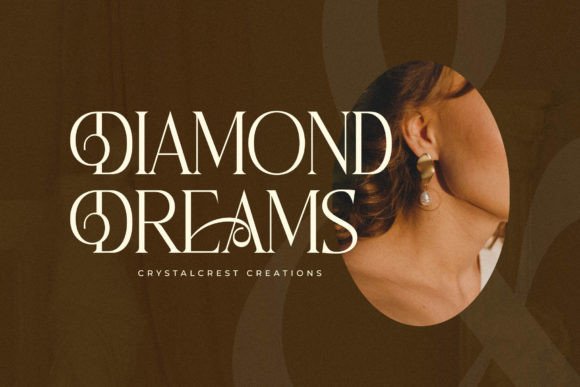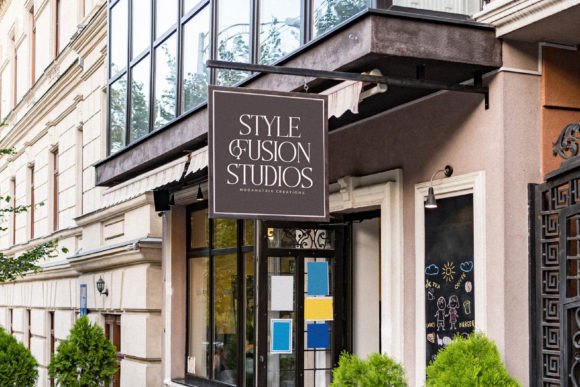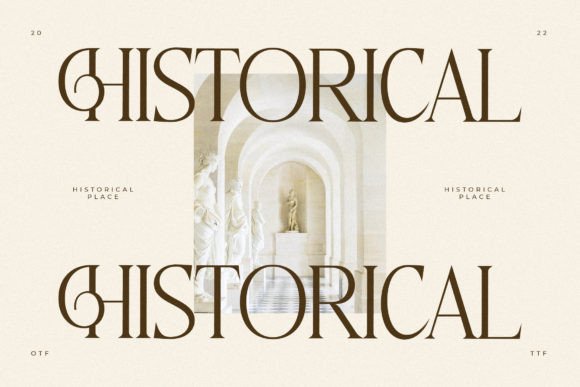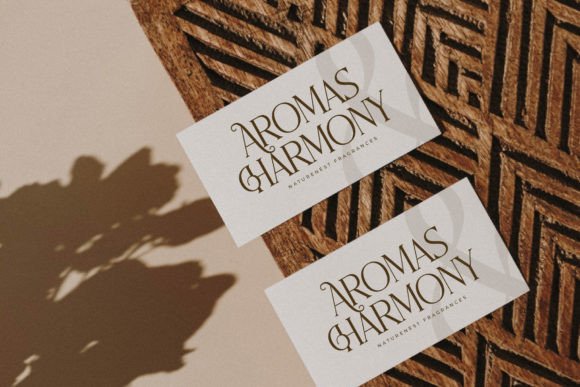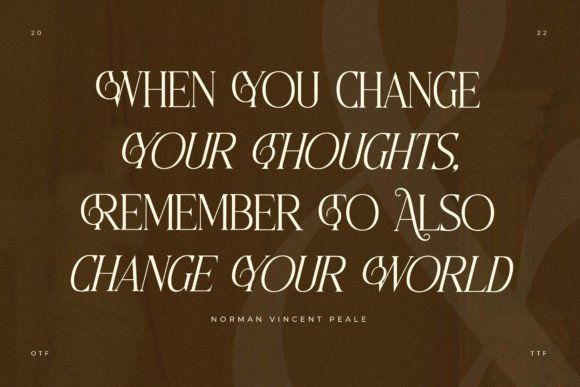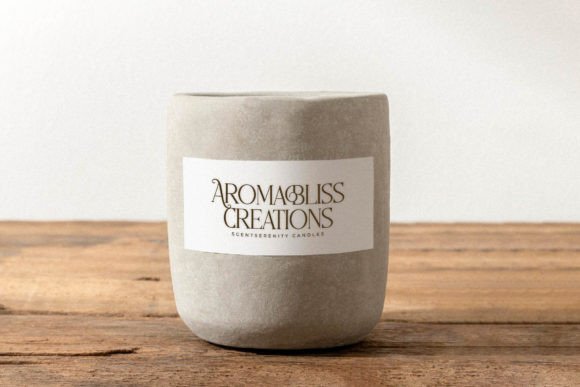
Introduction to Merogza Font
As a designer, there’s nothing quite like the thrill of stumbling upon the perfect font for a project. It’s that moment when everything comes together, and your creative vision is finally brought to life. For me, that moment happened when I discovered the Merogza Font. Its unique blend of classic and modern styles immediately caught my eye, and I knew I had to learn more.
With its elegant and luxurious aesthetic, Merogza Font is the perfect choice for designers looking to add a touch of sophistication to their creative projects. Whether you’re working on a high-end fashion brand, a luxury magazine, or a movie title design, this font is sure to make a statement.
Key Features of Merogza Font
- Unique Hand-Drawn Design: Merogza Font features a distinctive hand-drawn style, perfect for creative projects that require a personal touch.
- Wide Range of Applications: Suitable for various creative projects, including logos, typography, and graphics, due to its versatility and high-quality design.
Honest Review: Merogza Font
As a designer, I’m always on the lookout for high-quality design resources to elevate my creative projects. Recently, I had the chance to try out the Merogza Font, and here’s my honest review.
- ✨ Elegant and modern design aesthetic that’s perfect for creating a professional look.
- ✨ High-quality glyphs and letterforms that make it a pleasure to work with.
The Merogza Font is a great addition to any design resource library. Its transparent background makes it easy to use with complex backgrounds or as a standalone font. I’ve found it particularly useful for creating visually appealing headings and titles.
- ⚠️ Limited font weights and styles, which may not be ideal for designers who require a wide range of options.
- ⚠️ Not suitable for use in small font sizes, as the characters may become difficult to read.
Overall, I’m impressed with the Merogza Font’s quality and design. While it may have some limitations, it’s still a valuable resource for designers who need a high-quality, modern font for their creative projects.
Tips for Getting the Most Out of Merogza Font
For the best results, use the Merogza Font on a transparent background to create a clean and modern look. You can also experiment with different font sizes and styles to add visual interest to your designs.
The Merogza Font is a great choice for designers working on creative projects that require a high-quality, elegant font. It’s perfect for logos, branding, and other design elements that need a touch of sophistication.